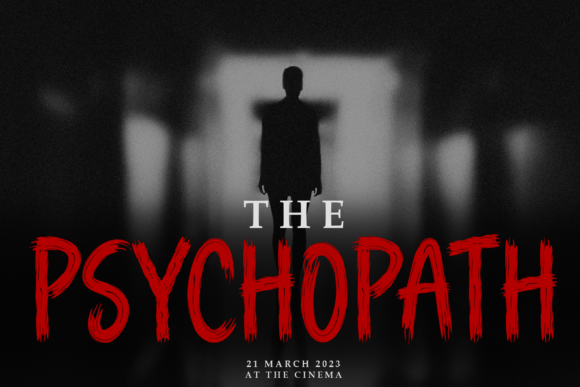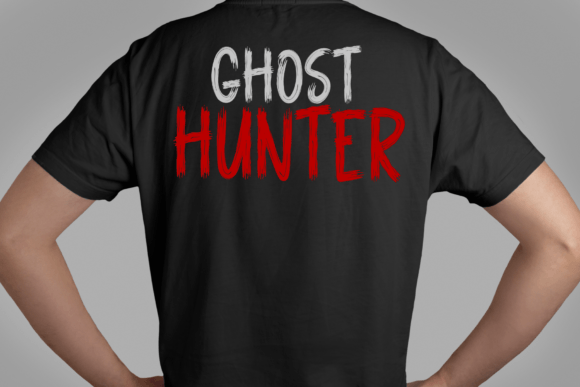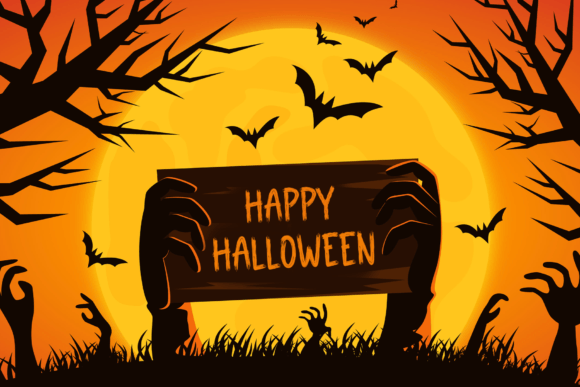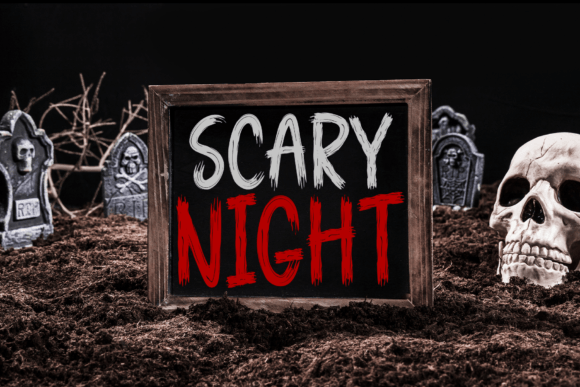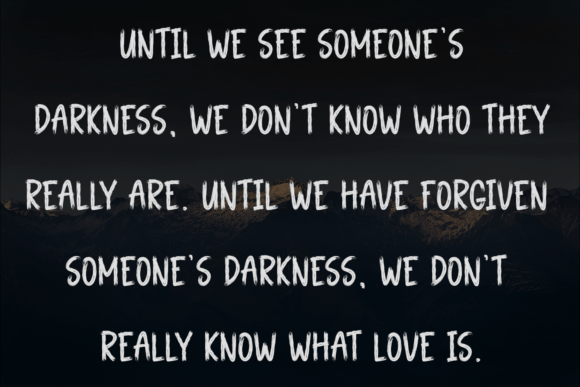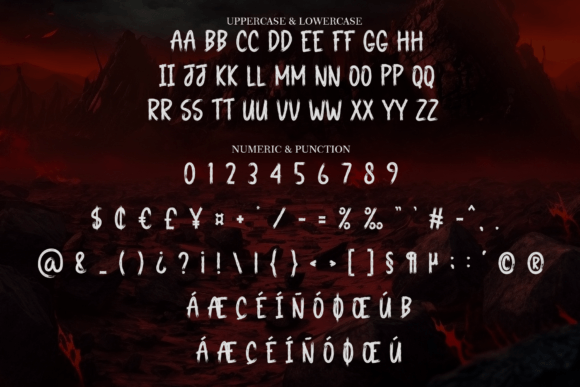
Hell Land Font: Add a Touch of Whimsy to Your Designs
In the world of typography, fonts play a crucial role in conveying the tone and personality of a design. If you’re looking for a unique and bold handwritten display font that can add a fun touch to your projects, look no further than Hell Land Font. This adorable font is perfect for designers and crafters who want to create eye-catching movie posters, book titles, banners, cards, and more.
What is Hell Land Font?
Hell Land Font is a one-of-a-kind, handwritten display font that exudes a playful and cute vibe. Its bold and chunky letters are carefully crafted to make a statement, making it ideal for designs that require a touch of whimsy. Whether you’re working on a movie poster, book title, or banner, Hell Land Font is sure to grab attention and leave a lasting impression.
Key Features of Hell Land Font
- Unique and Bold Design: Hell Land Font boasts a distinctive and bold design that sets it apart from other fonts.
- Handwritten Style: The font’s handwritten style gives it a personal and organic feel, making it perfect for designs that require a touch of personality.
- Cute and Fun: Hell Land Font is designed to be cute and fun, making it ideal for designs that require a playful touch.
- Versatile: This font can be used for a wide range of design projects, including movie posters, book titles, banners, cards, and more.
Uses of Hell Land Font
Hell Land Font is a versatile font that can be used for various design projects, including:
- Movie Posters: Add a touch of whimsy to your movie posters with Hell Land Font.
- Book Titles: Make your book titles stand out with this bold and eye-catching font.
- Banners: Create attention-grabbing banners with Hell Land Font.
- Cards: Add a personal touch to your cards with this unique and playful font.
- Social Media Graphics: Use Hell Land Font to create engaging social media graphics that stand out.
Why Choose Hell Land Font?
If you’re looking for a font that can add a touch of whimsy to your designs, Hell Land Font is an excellent choice. Here are some reasons why:
- Easy to Read: Despite its bold design, Hell Land Font is easy to read, making it perfect for designs that require a clear and concise message.
- Highly Versatile: This font can be used for a wide range of design projects, making it a great addition to your font library.
- Unique Design: Hell Land Font’s unique design sets it apart from other fonts, ensuring that your designs stand out from the crowd.
Tips for Using Hell Land Font
To get the most out of Hell Land Font, here are some tips to keep in mind:
- Use it for Headlines: Hell Land Font is perfect for headlines, where its bold design can make a statement.
- Pair it with Other Fonts: Experiment with pairing Hell Land Font with other fonts to create a unique and visually appealing design.
- Adjust the Size: Don’t be afraid to adjust the size of Hell Land Font to create visual interest and hierarchy in your design.
Hell Land Font is a unique and bold handwritten display font that can add a touch of whimsy to your designs. Its cute and fun design makes it perfect for movie posters, book titles, banners, cards, and more. With its versatility, ease of use, and unique design, Hell Land Font is an excellent addition to any designer’s font library. So why not give it a try and see how it can elevate your designs?